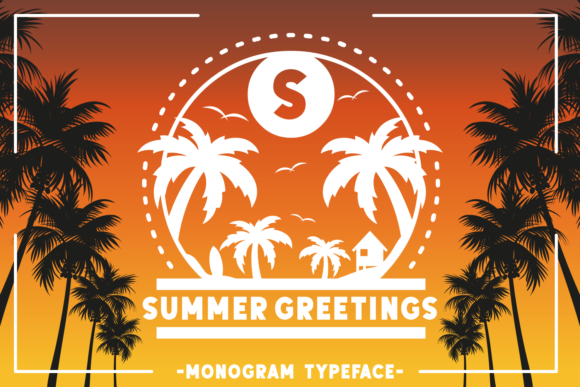
**Summer Greetings Font: Your Gateway to a World of Joy and Sunshine**
Step into a realm of warmth and cheer with Summer Greetings, a captivating decorative font that will infuse your designs with the spirit of summer. Adorned with playful palm trees that dance across your screen, this font is the perfect choice for adding a touch of whimsy and exuberance to any project.
Whether you're crafting party invitations that evoke the vibrant colors of a tropical paradise or designing posters that radiate the sun-kissed joy of summer, Summer Greetings will transform your creations into visual masterpieces. Its playful demeanor and infectious energy will instantly uplift any design, capturing the essence of summer's carefree spirit.
**Unlock Your Creativity with Endless Possibilities**
Summer Greetings is more than just a font; it's a gateway to a world of creative possibilities. Its versatility knows no bounds, making it the ideal choice for a wide range of projects:
* **Party Invitations:** Send out invitations that will have guests eagerly RSVP-ing with excitement. Summer Greetings will add a touch of summer magic to your parties, whether you're planning a poolside bash or a festive backyard barbecue.
* **Summer-Themed Designs:** Capture the essence of summer in your designs with Summer Greetings. Create social media graphics that evoke the carefree days of summer or design posters that celebrate the season's vibrant beauty.
* **Personal Branding:** Make a statement with a unique personal brand that reflects your vibrant personality. Summer Greetings can add a touch of sunshine to your logos, business cards, and other branding materials, leaving a lasting impression on potential clients.
**Why Choose Summer Greetings?**
* **Fun and Cheerful:** Its playful design and palm tree motifs will bring a smile to your face and add a touch of summery joy to your projects.
* **Versatility Personified:** Whether you're designing invitations, posters, or personal branding materials, Summer Greetings can adapt seamlessly to your needs.
* **Summer Vibes:** Capture the essence of summer with a font that exudes warmth, sunshine, and carefree spirit.
* **High-Quality Design:** Crafted by renowned font designer Kelik - 7NTypes, Summer Greetings ensures exceptional quality and attention to detail.